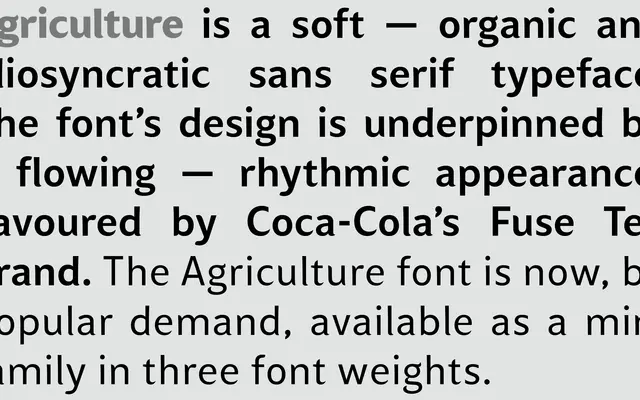
Agriculture
A soft, rhythmically drawn sans serif from A2-Type with an organic, idiosyncratic character across three weights.
Available in Light, Medium and Bold, Agriculture has an unhurried, flowing quality that sets it apart from more neutral humanist sans serifs. Its organic construction gives it a distinctive personality suited to editorial, branding and cultural projects where a geometric or grotesque would feel too cold. The family is compact but coherent, with the weight range covering most everyday typographic needs.
Described as soft, organic and idiosyncratic with a flowing, rhythmic appearance, placing it firmly in the humanist sans tradition rather than a geometric or grotesque model.